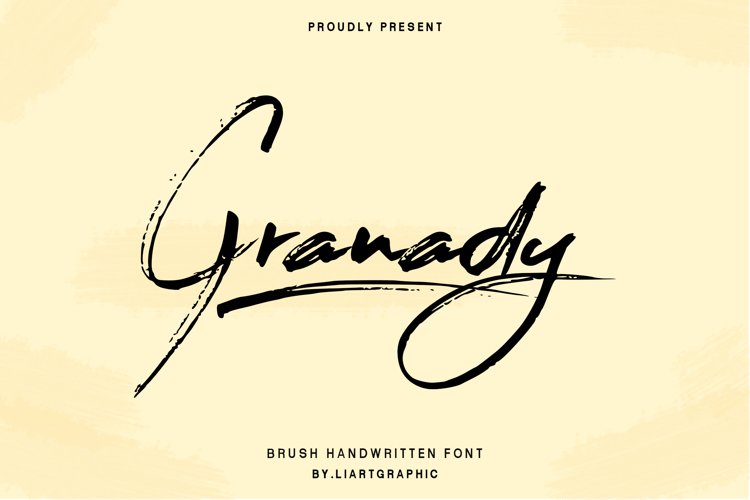
Meet our newest product, we call this product granady font.
granady font are brush font,
Whit a sweet touch and beautiful indentation in each letter.
Granady font is very nice to use on:
Wedding invitation,fashion magazine,logos,and photography
Stylistic Alternates
Ligatures
Stylistic sets
Multilingual Support